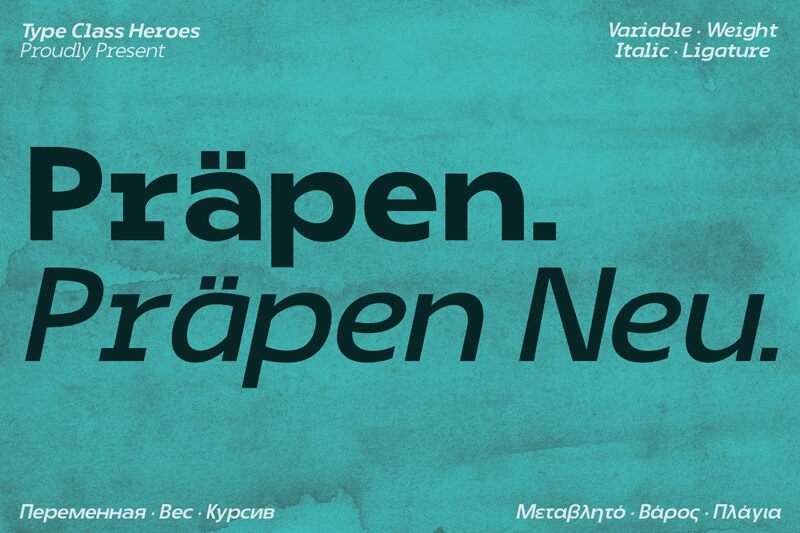
Prapen DEMO Extra Light Italic
Prapen Extra Light Italic font by TypeClassHeroes is a sans serif with clean lines and a modern, contemporary feel. The italic style of the typeface gives it medium contrast and a dynamic look for an aesthetic that adds sleekness to content.
This typeface can be used for any kind of creative project where you want to bring valuable and unique nuance to your designs. Fashion editorials, lifestyle product branding/marketing, resort content presentations as well as art portfolios would greatly benefit from Prapen's luxurious presence.